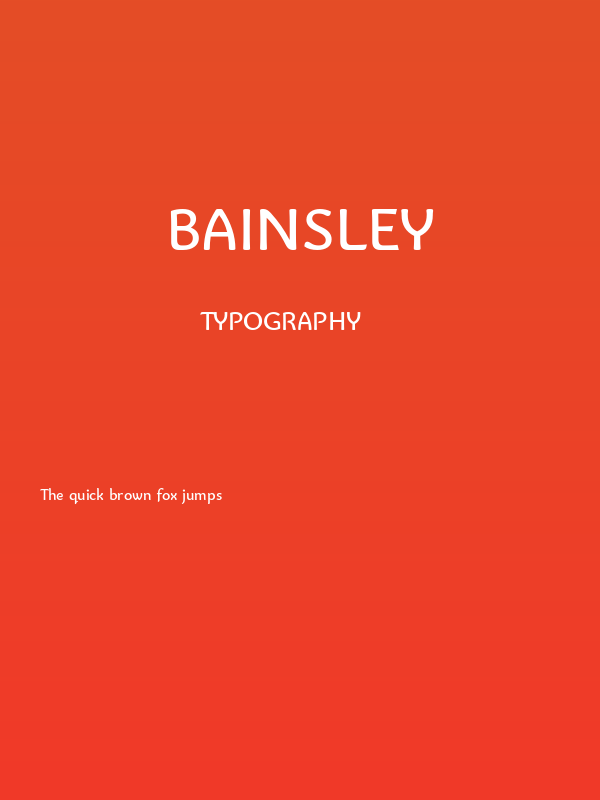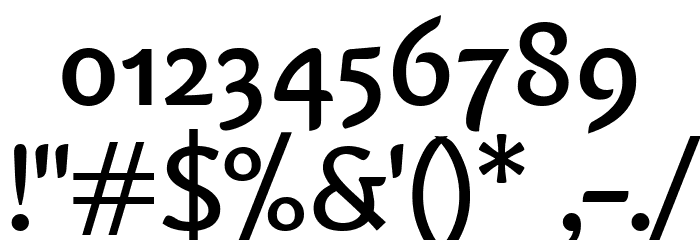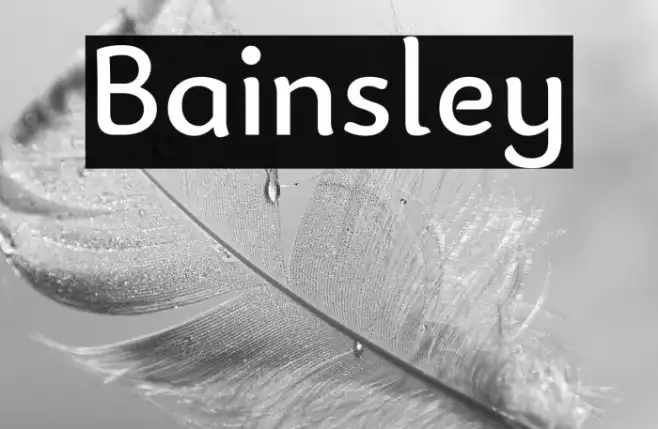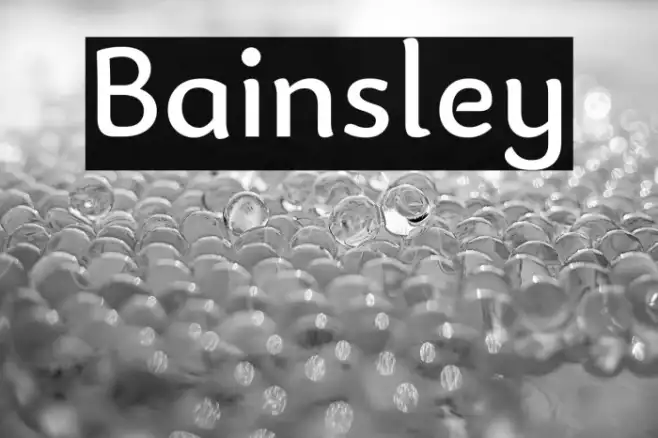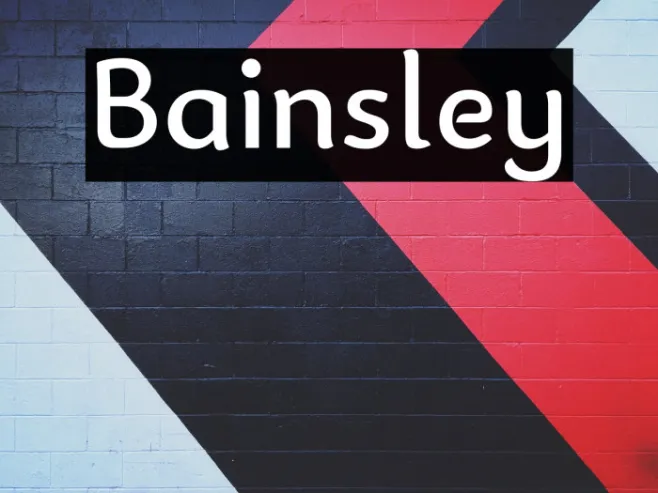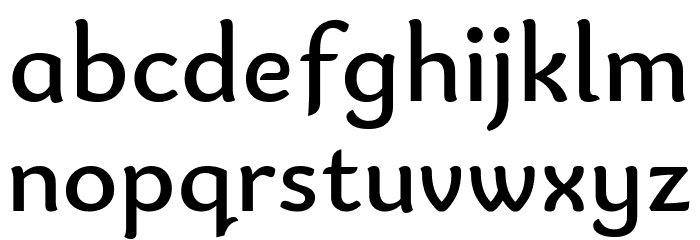
Bainsley Font
Bainsley Description
This font features a playful and rounded design with a friendly and approachable appearance. The characters have a consistent stroke width, giving it a uniform look. The uppercase letters are slightly taller than the lowercase, maintaining a balanced proportion. The numerals are clear and easy to read, while the special characters are well-integrated into the overall style. The font's smooth curves and lack of sharp edges contribute to its inviting and casual feel, making it suitable for a variety of applications where a warm and informal tone is desired.
| Proposed Projects | Ideal for children's books, greeting cards, casual branding, and playful posters. |